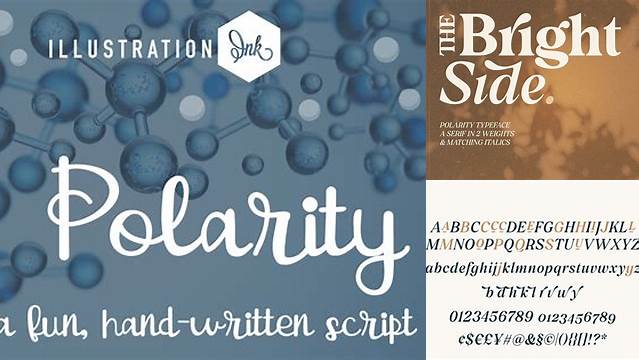
Polarity Font: Free Download & Creative Uses
Understanding the Appeal of Polarity Font
Hey guys! Let's dive into the awesome world of the Polarity font. You know, the one that's been popping up everywhere, adding that unique flair to designs? It's not just any font; it's a carefully crafted piece of digital art that brings a certain vibe to your projects. When we talk about fonts like Polarity, we're essentially discussing a tool that can transform a mediocre design into something truly memorable. Think about it: the shape of letters, their thickness, the spacing – it all contributes to the overall message and feeling you're trying to convey. Polarity font has this distinct characteristic that sets it apart, making it a go-to for designers seeking something fresh and impactful. Its versatility is another key factor in its popularity. Whether you're working on a sleek corporate brochure, a vibrant social media post, a quirky t-shirt design, or even a professional website, Polarity font has the potential to adapt and shine. It's this adaptability, combined with its inherent aesthetic appeal, that makes it a standout choice. We'll explore why this font has captured the attention of so many creatives and how you can leverage its power in your own work. So, get ready to discover the magic of Polarity and how a simple font can make a world of difference!
Why Choose Polarity Font for Your Next Project?
So, why should you seriously consider using the Polarity font for your next big creative endeavor? Well, for starters, it offers a fantastic blend of modernity and character. Unlike some generic fonts that can feel a bit soulless, Polarity injects a personality into your text. It’s got this certain je ne sais quoi that grabs attention without being overly loud or distracting. Imagine you're designing a brand identity for a new startup. You need something that feels contemporary, trustworthy, and a little bit exciting, right? Polarity font can deliver just that. Its clean lines often convey a sense of professionalism, while its unique stylistic elements can hint at innovation and creativity. This duality makes it incredibly valuable. Moreover, the accessibility of a free polarity font download means you don't have to break the bank to incorporate this high-quality typeface into your toolkit. This is a huge win for indie designers, small businesses, and students who are often working with tighter budgets. Having access to premium-looking fonts for free levels the playing field and allows for professional-grade results without the hefty price tag. We’ll delve into the specific design elements that make Polarity so special, but for now, just know that it’s a smart, stylish, and cost-effective choice for a wide array of design applications.
Exploring the Aesthetic Qualities of Polarity Font
Let's get down to the nitty-gritty of what makes the Polarity font look so darn good. It's not just about being a font; it's about the feeling it evokes. Polarity often features a clean, geometric structure, which gives it a modern and organized feel. Think sharp edges, consistent stroke widths, and well-defined curves. This geometric foundation provides a sense of stability and order, making it perfect for designs where clarity and readability are paramount. However, what sets Polarity apart from other geometric sans-serifs is its subtle quirks and personality. It might have slightly unconventional letterforms, a unique ligature, or a distinctive weight variation that adds a touch of artistic flair. These small details, often overlooked, are what give the font its character and make it memorable. For instance, some iterations of Polarity might play with negative space in an interesting way, creating a visual rhythm that's both engaging and pleasing to the eye. This careful balance between classic structure and innovative detail is what makes Polarity font so versatile. It can be serious and professional when needed, but it also possesses an underlying playfulness that can be brought out in more creative contexts. When you download Polarity font, you're not just getting letters; you're getting a tool that has been thoughtfully designed to communicate effectively and aesthetically.
Mastering Typographic Hierarchy with Polarity Font
One of the coolest things about using a versatile font like Polarity is its ability to help you establish strong typographic hierarchy. What's that, you ask? It's basically the art of organizing text on a page to show its relative importance. Think headings, subheadings, body text, captions – they all need to be distinct but work harmoniously. Polarity font, with its potential variations in weight (like light, regular, bold) and style, is a dream for creating this hierarchy. You can use a bold, heavier weight of Polarity for your main headlines to grab immediate attention. Then, perhaps a regular weight for subheadings to guide the reader's eye down the page. For the main body text, a lighter weight or a slightly more spaced-out version can enhance readability, especially for longer blocks of content. The key is consistency. Once you've decided on a hierarchy system using Polarity, stick to it throughout your design. This creates a predictable and easy-to-follow reading experience for your audience. Don't underestimate the power of visual cues! By using different weights or sizes of the Polarity font, you're essentially telling your reader where to look first, what's most important, and how the information is structured. This makes your designs not only look good but also function brilliantly.
Polarity Font in Branding and Identity Design
When it comes to branding, your font is like your company's voice. It's one of the first things people notice and it significantly impacts how your brand is perceived. This is where the Polarity font really shines. Its modern yet approachable feel can lend itself beautifully to creating a strong brand identity. Imagine a tech startup using Polarity for its logo and website. The clean lines convey innovation and reliability, while a slightly unique characteristic of the font can add a memorable, distinctive touch. For a lifestyle brand, maybe a bolder, more expressive version of Polarity could be used to convey energy and excitement. The versatility is key here. You can use different weights and styles of Polarity across various brand assets – from business cards and letterheads to social media graphics and advertising campaigns. This consistency helps build brand recognition. A well-chosen font like Polarity ensures that your brand message is clear, professional, and aesthetically pleasing. It helps you stand out in a crowded marketplace and connect with your target audience on a deeper level. So, if you're thinking about a new brand or refreshing an existing one, definitely consider the impact a free polarity font download can have on establishing a memorable and effective visual identity.
Enhancing Web Design with the Polarity Font Family
Web design is all about creating a seamless and engaging user experience, and typography plays a massive role in that. Enter the Polarity font. Its clean, readable nature makes it an excellent choice for website copy. Whether it's headings, navigation menus, or the body text of your articles, Polarity ensures that your content is accessible and easy to digest. For web designers, the ability to use a font family – meaning different weights and styles of the same typeface – is invaluable. With Polarity, you can create visual interest and hierarchy without resorting to multiple, clashing fonts. A bold Polarity for headlines immediately draws the eye, while a lighter, well-spaced version for paragraphs ensures comfortable reading, even on smaller screens. Furthermore, the modern aesthetic of Polarity often pairs well with contemporary web design trends, such as minimalist layouts, ample white space, and clean imagery. It can contribute to a professional and trustworthy look, which is crucial for building credibility online. When users can easily read and navigate your site, they're more likely to stay longer and engage with your content. A free polarity font download gives you access to these powerful design tools without the financial strain, making it a smart choice for developers and businesses alike aiming for a polished online presence.
Polarity Font for Print Materials: Brochures, Flyers, and More
While we often think of fonts in the digital realm, let's not forget their power in the physical world! Print materials like brochures, flyers, posters, and even business cards benefit immensely from the right typeface. The Polarity font, with its clarity and distinct character, is a fantastic option for these applications. Imagine a crisp, professional brochure for a real estate company. Using a bold weight of Polarity for the headings can make property titles pop, while a regular weight for the descriptions ensures easy reading. For a vibrant event flyer, perhaps a more stylized version of Polarity, if available, could add an energetic flair. The key is that Polarity offers enough versatility to suit different print needs. Its readability is paramount, ensuring that your message gets across effectively without straining the reader's eyes. When designing for print, you're often dealing with limited space, so a font that is both impactful and legible is essential. A free polarity font download allows you to achieve this professional look without adding to your printing costs. It's about making every element count, and choosing a font like Polarity is a strategic decision that enhances the overall quality and effectiveness of your printed communication.
Utilizing Polarity Font in Social Media Graphics
Social media is a visual battlefield, guys, and your graphics need to stand out! This is where the Polarity font can be a total game-changer. Think about those eye-catching quote images, promotional banners, or announcement posts you see scrolling through your feed. Polarity can lend that perfect touch of style and clarity. Its modern aesthetic often aligns well with the fast-paced, visually driven nature of platforms like Instagram, Facebook, and Twitter. You can use bold versions of Polarity to make key messages or calls to action instantly noticeable in a crowded feed. For text-heavy graphics, like infographics or detailed announcements, its readability ensures that your information is easily absorbed. The cool factor of Polarity can also help your brand feel more contemporary and relatable to a younger audience. When people are quickly scrolling, a font that is both legible and aesthetically pleasing is more likely to catch their eye and hold their attention. A free polarity font download means you can experiment with different styles and weights of Polarity to create a cohesive and attractive visual identity for your social media presence, helping you make a bigger impact without breaking the bank.
Conclusion: Embrace the Power of Polarity Font
Alright guys, we've journeyed through the wonderful world of the Polarity font, exploring its aesthetic appeal, practical applications, and the sheer creative freedom it offers. From enhancing brand identities and websites to making print materials and social media graphics pop, Polarity proves itself to be an incredibly versatile and valuable typeface. Its emphasis on clarity, its modern charm, and the accessibility of a free polarity font download make it a standout choice for designers of all levels. Whether you're crafting a bold headline, setting readable body text, or pairing it with other fonts for a sophisticated look, Polarity delivers. Remember the importance of checking the licensing, but embrace the power this font gives you to create professional, engaging, and visually stunning designs. So go ahead, download Polarity, experiment with its different weights and styles, and see how it can elevate your next creative project. Happy designing!